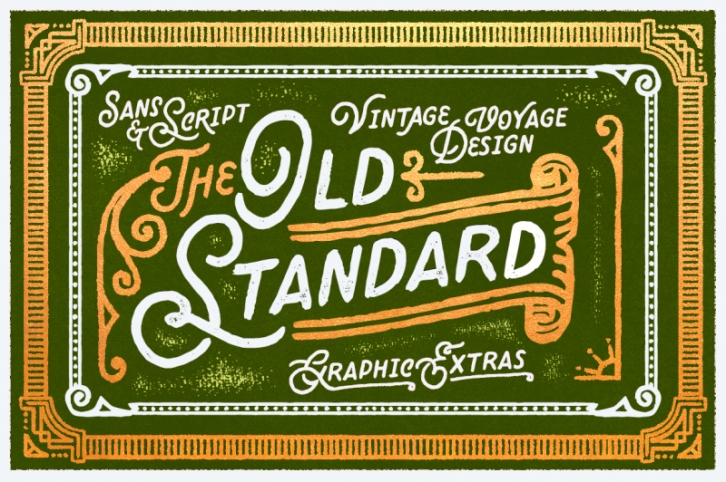
Old Standard - Vintage imperfect font with Script uppercase and Sans lowercase letters. Two stylistic sets for each letter and two style for font - regular and vintage. And it's not all - Ornament decor sets for decorating your type composition. More than 70 objects. Pdf guide is included. Inspired by American heritage. Multi language.